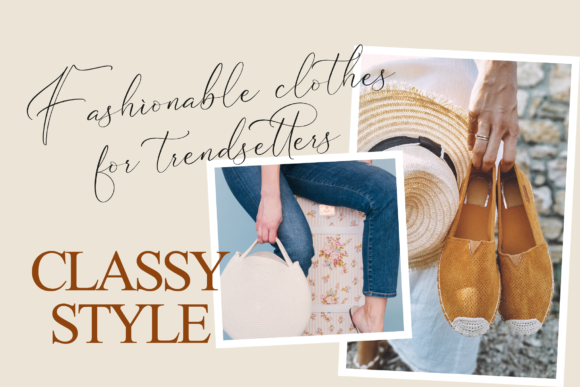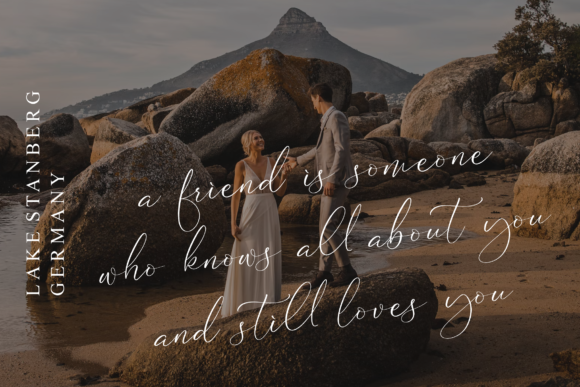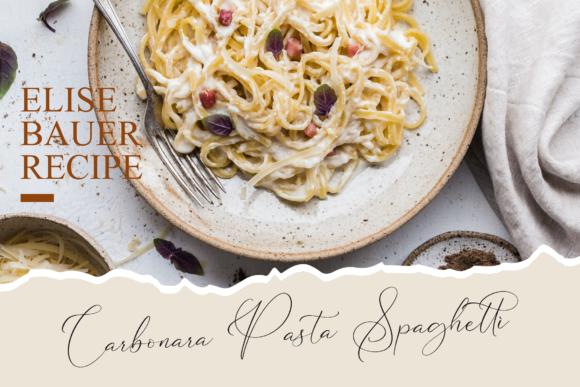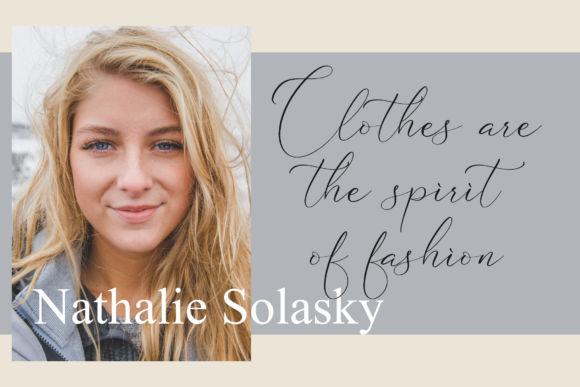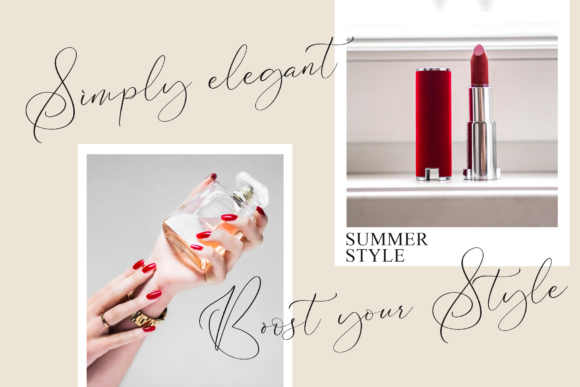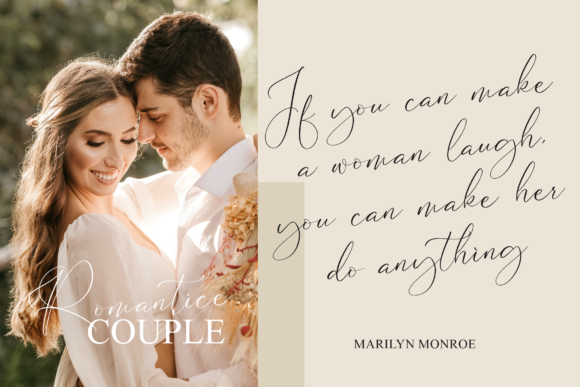
Introduction to Ranlikha Font
Have you ever found yourself in a creative moment, staring at a blank page, and yearning for the perfect font to bring your ideas to life? For designers, finding the right font can be the difference between a good project and a great one. That’s where the Ranlikha Font comes in – a luxurious script font designed to elevate any high-quality project.
With its elegant and sophisticated feel, the Ranlikha Font is perfect for a wide range of creative projects, from logos and branding to homeware designs and product packaging. Whether you’re a professional designer or a hobbyist, this font is a valuable addition to your design resource library. And the best part? You can even download it for free, making it an accessible and transparent background for your next big project.
Key Features of Ranlikha Font
- High-quality, professional font design suitable for creative projects.
- Comes with a transparent background, allowing for seamless integration into various designs.
- This font is ideal for designers and artists looking for a unique, creative element to enhance their projects.
- Easy to use and customize, making it a valuable asset for any design project.
Honest Review: Ranlikha Font
I recently stumbled upon the Ranlikha Font, and I must say it’s a great addition to any designer’s toolbox. The high quality of the font is evident, making it perfect for a creative project that demands sophistication and elegance.
One of the standout features of the Ranlikha Font is its versatility. It’s available for free download, making it an excellent design resource for designers on a budget. The font’s design is sleek and modern, with a transparent background that allows it to blend seamlessly with any background image.
Here are some of the things that work well with the Ranlikha Font:
- ✨ High quality and crisp typography
- ✨ Versatile design that suits various creative projects
- ⚠️ Limited font styles and weights available
- ⚠️ Not suitable for projects that require a lot of font customization
Overall, the Ranlikha Font is a solid choice for designers looking for a high-quality, free design resource. While it may have some limitations, its versatility and sleek design make it a great addition to any design project.
Getting the Most Out of Ranlikha Font
Experiment with different font sizes, colors, and styles to get the most out of the Ranlikha Font. This font is highly versatile and can be used in a variety of design contexts.
Common Use Cases for Ranlikha Font
The Ranlikha Font is commonly used in creative projects, including graphic design, digital art, and typography. It’s also suitable for branding, logos, and marketing materials.
Alternatives to Ranlikha Font
Alegreya is a high-quality serif font that is perfect for creative projects requiring elegance and sophistication. It’s available for free download and comes with a transparent background, making it ideal for design projects. Alegreya is a great alternative to Ranlikha Font as it offers a more traditional and classic look. Use Alegreya for projects that require a timeless and refined feel.
Comparison to Ranlikha Font: Alegreya is more traditional and classic, while Ranlikha Font is more modern and minimalistic.
Montserrat is a modern sans-serif font that is perfect for creative projects requiring a clean and minimalist look. It’s available for free download and comes with a transparent background, making it ideal for design projects. Montserrat is a great alternative to Ranlikha Font as it offers a similar modern and minimalistic feel. Use Montserrat for projects that require a clean and simple design.